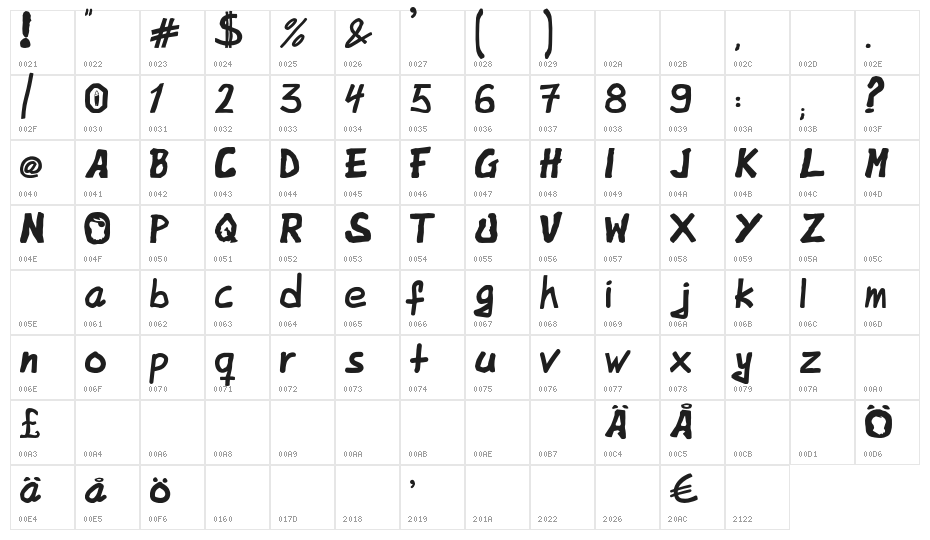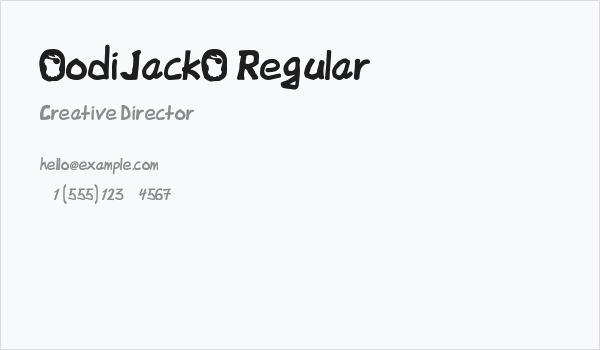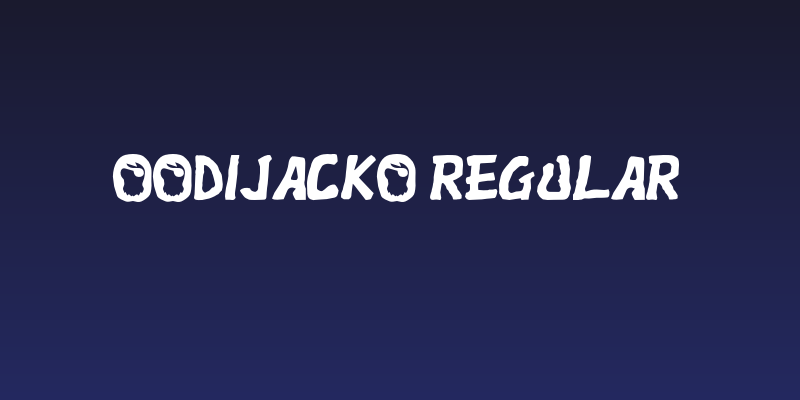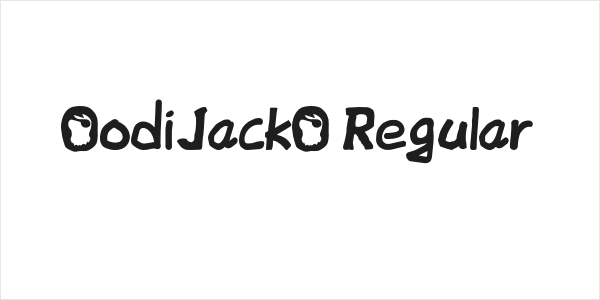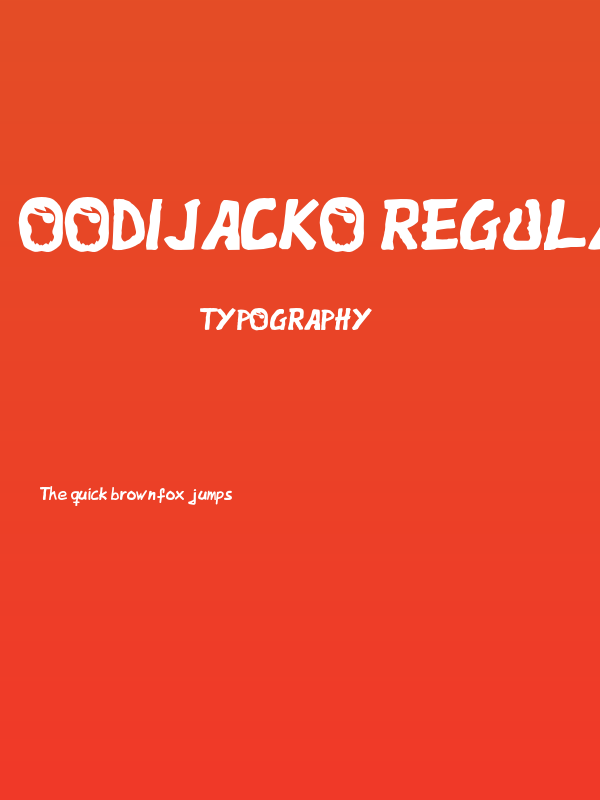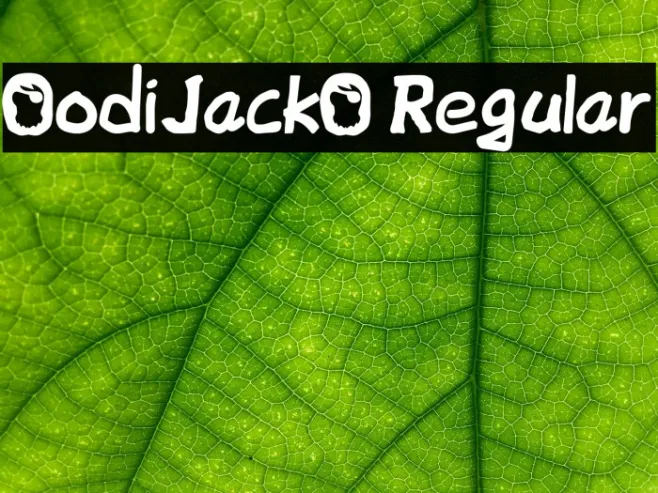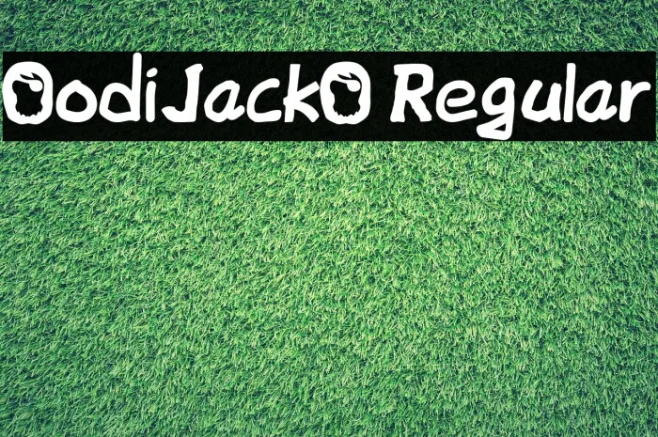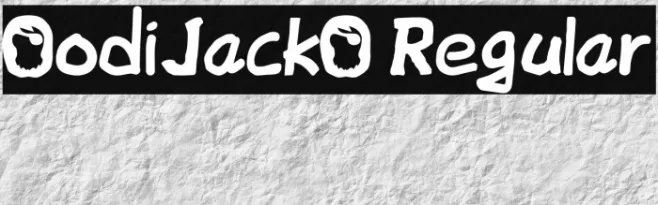
OodiJackO Regular Font
OodiJackO Regular Description
This font exhibits a playful and bold handwritten style, characterized by its irregular and dynamic strokes. The uppercase letters are robust and slightly uneven, giving a lively and informal appearance. The lowercase letters maintain a consistent style, with some characters featuring unique loops and curves that enhance the font's whimsical nature. The numerals are bold and easily distinguishable, while the special characters complement the overall design with their quirky shapes. This font's energetic and casual vibe makes it suitable for creative and informal projects.
| Overall Style | Playful, Casual |
| Proposed Projects | Ideal for children's books, comic strips, playful branding, and casual event invitations. |